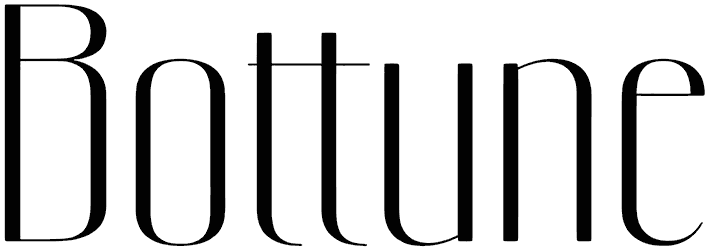
Bottune Font
When you personalize the lettering style of your design, it becomes a nice reflection of your personality easily, and Bottune font will definitely be an apt choice if you are interested in unique classic styles.
This tall, fashion font has thin but gorgeous letters that are going to grab your followers’ attention. Create a memorable fashion event flyer, a chic restaurant logo, or the like, and highlight your creativity.